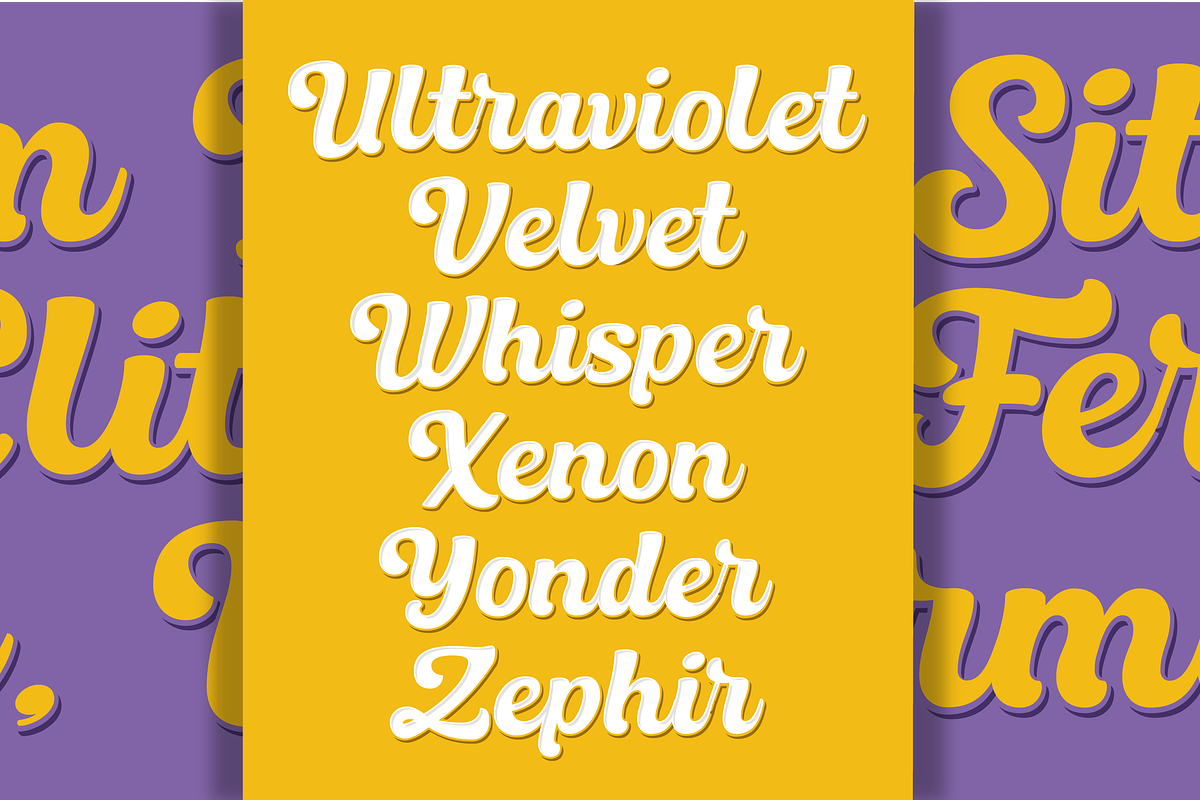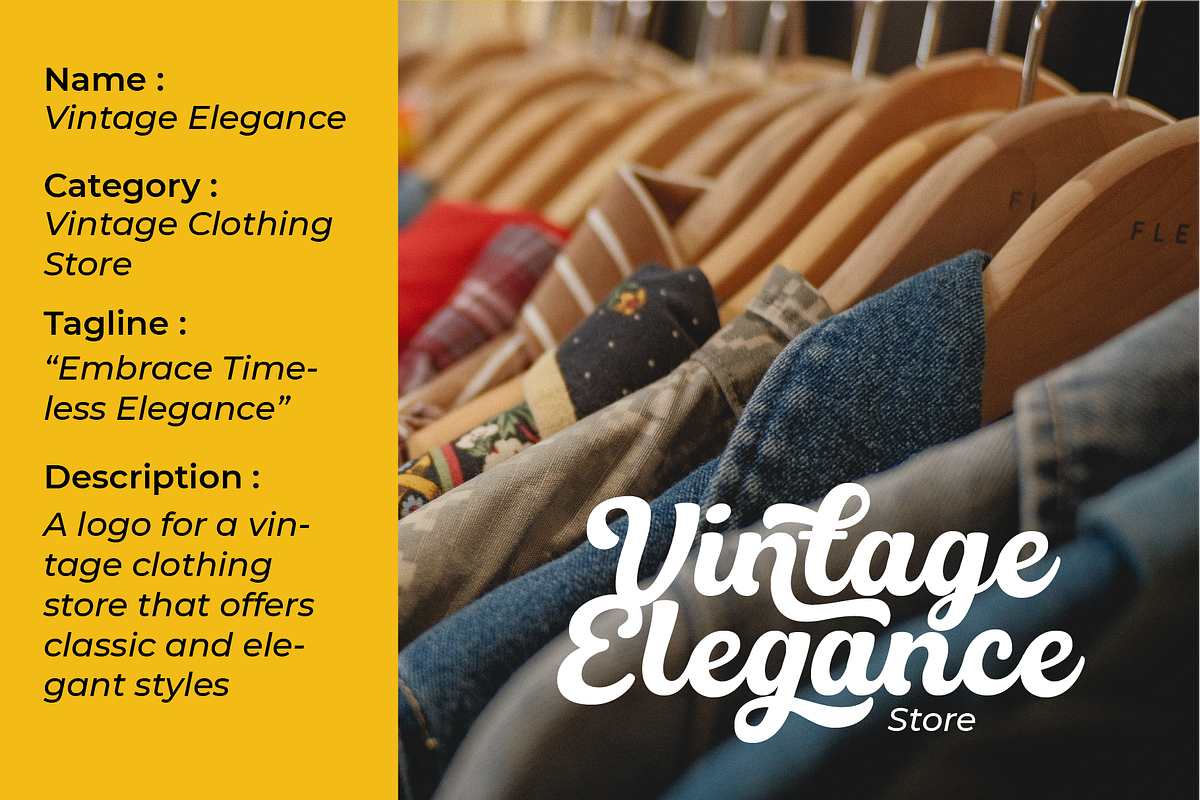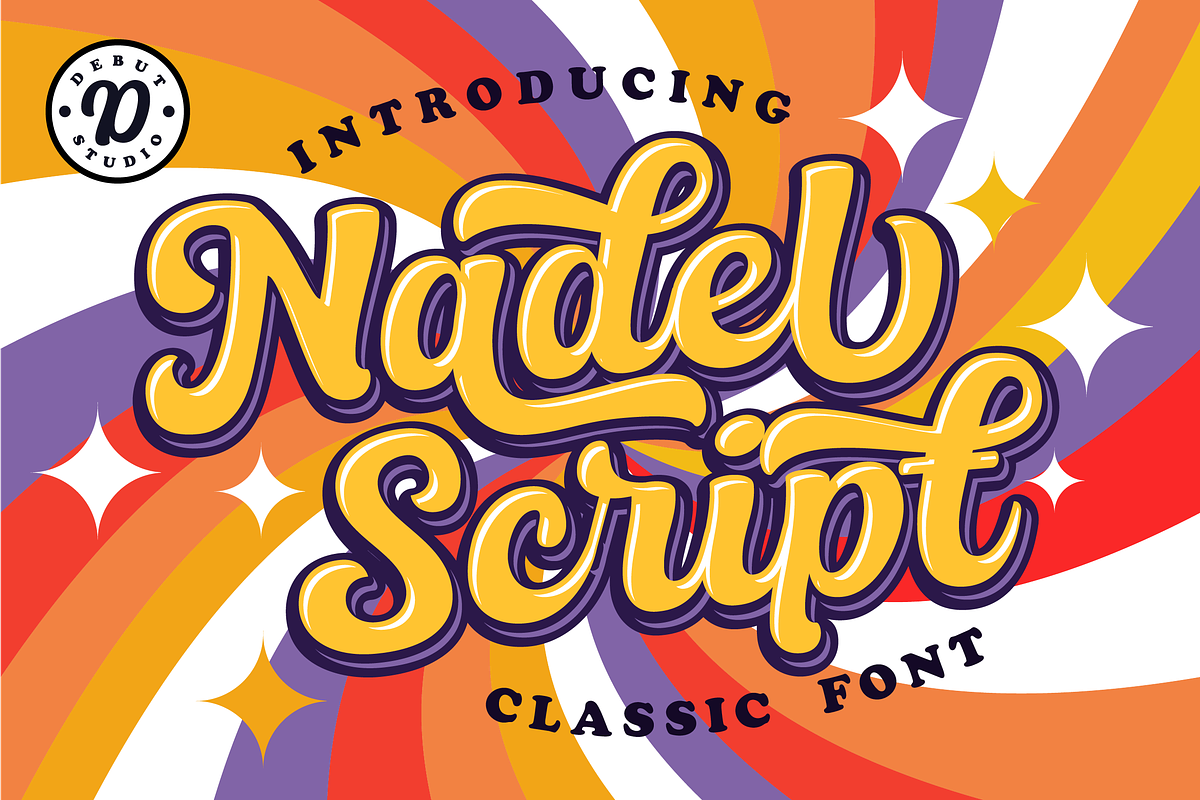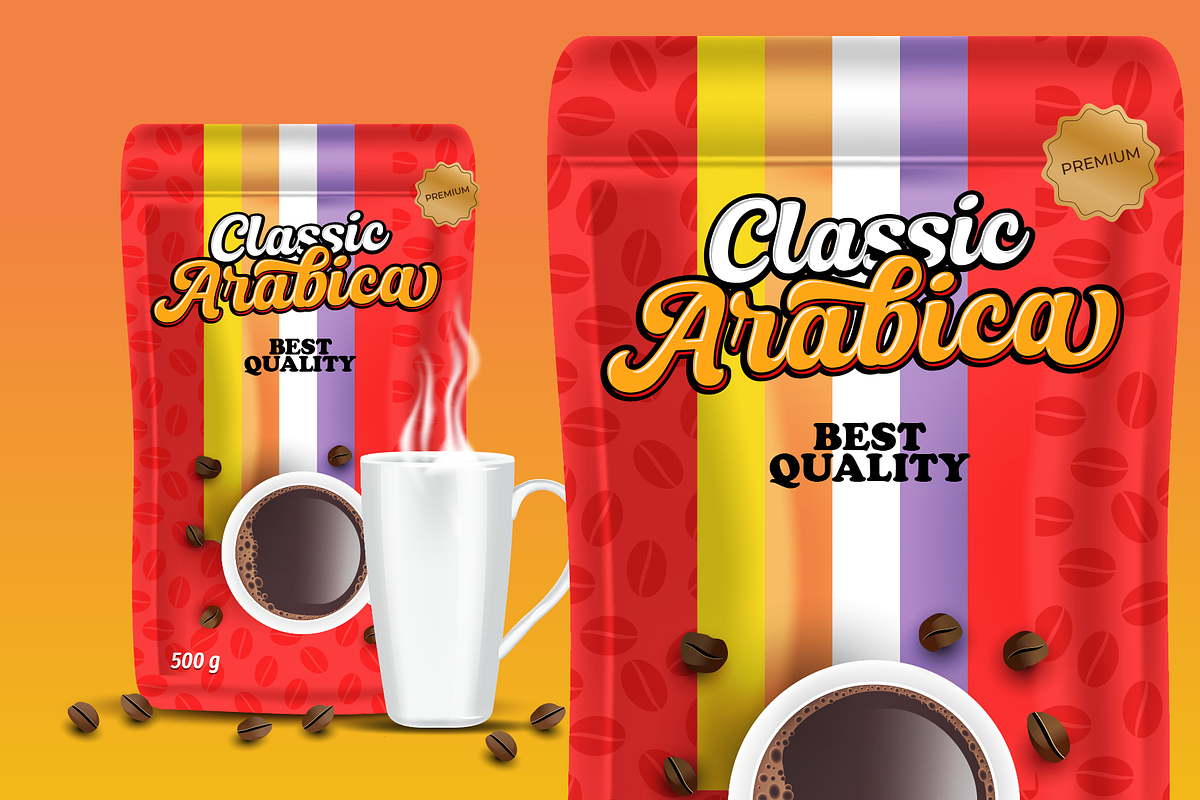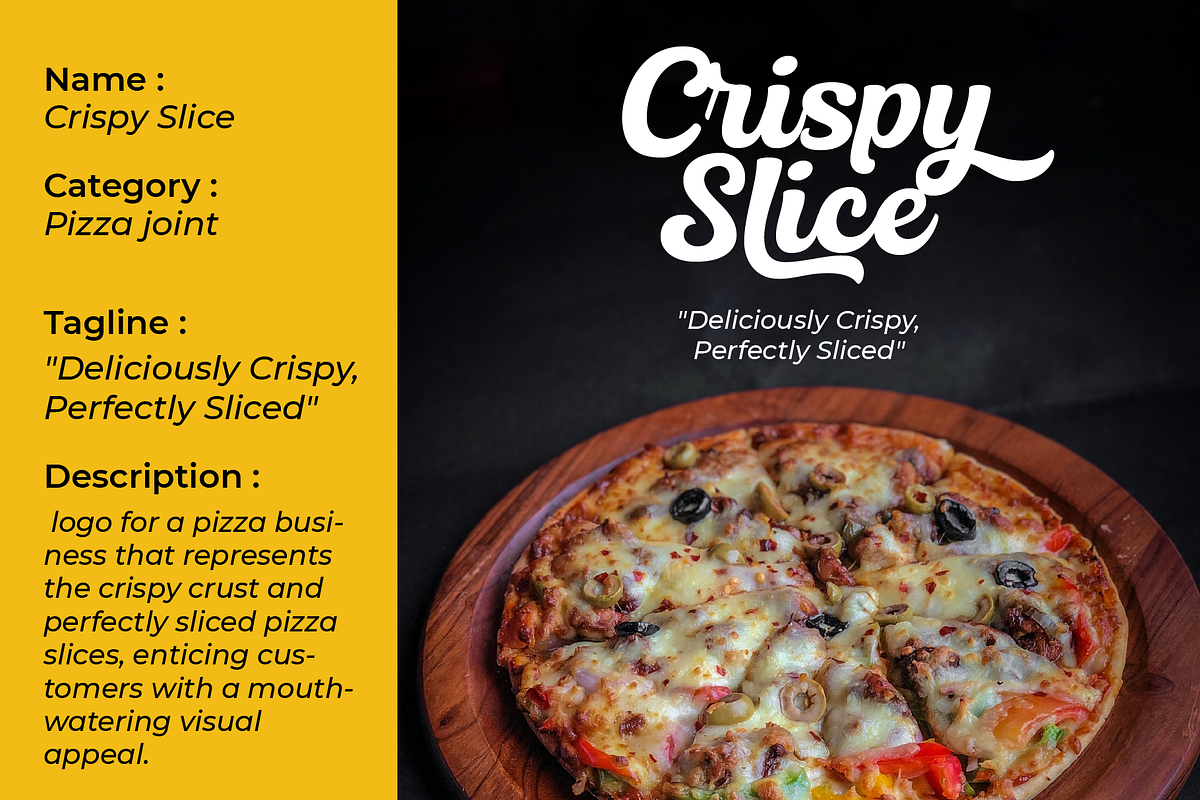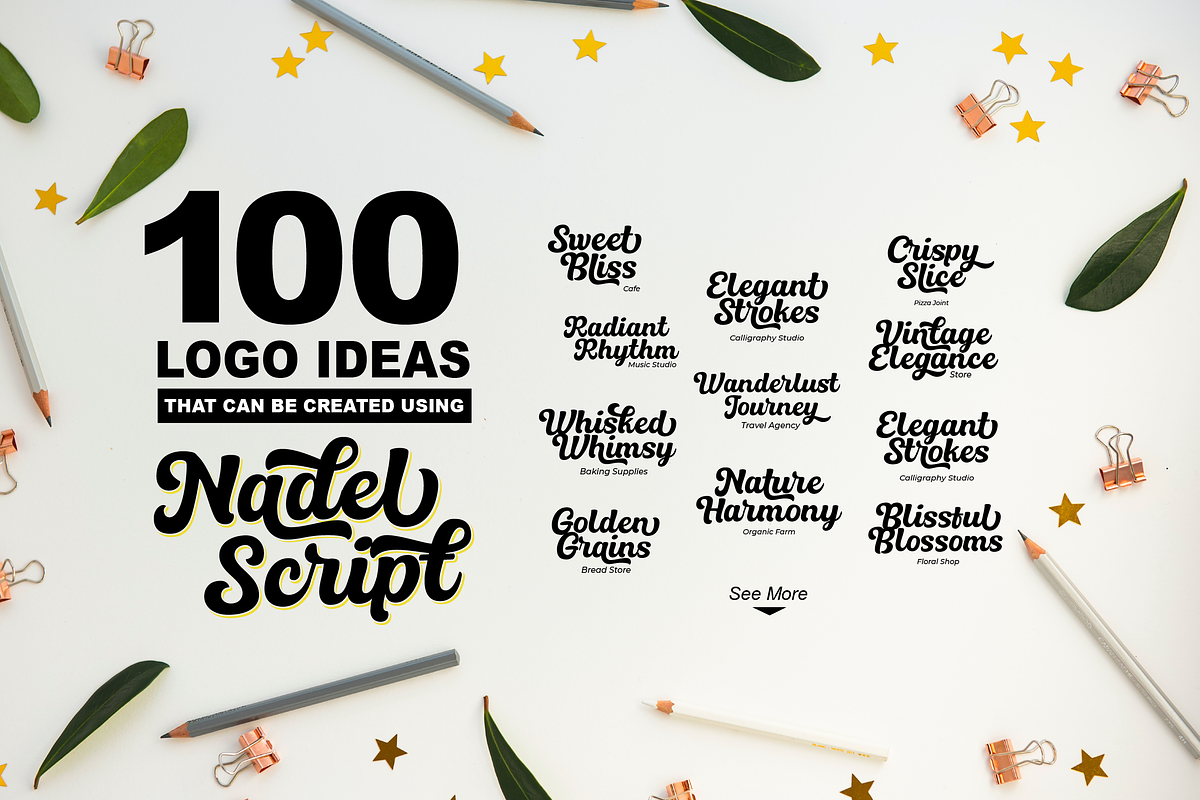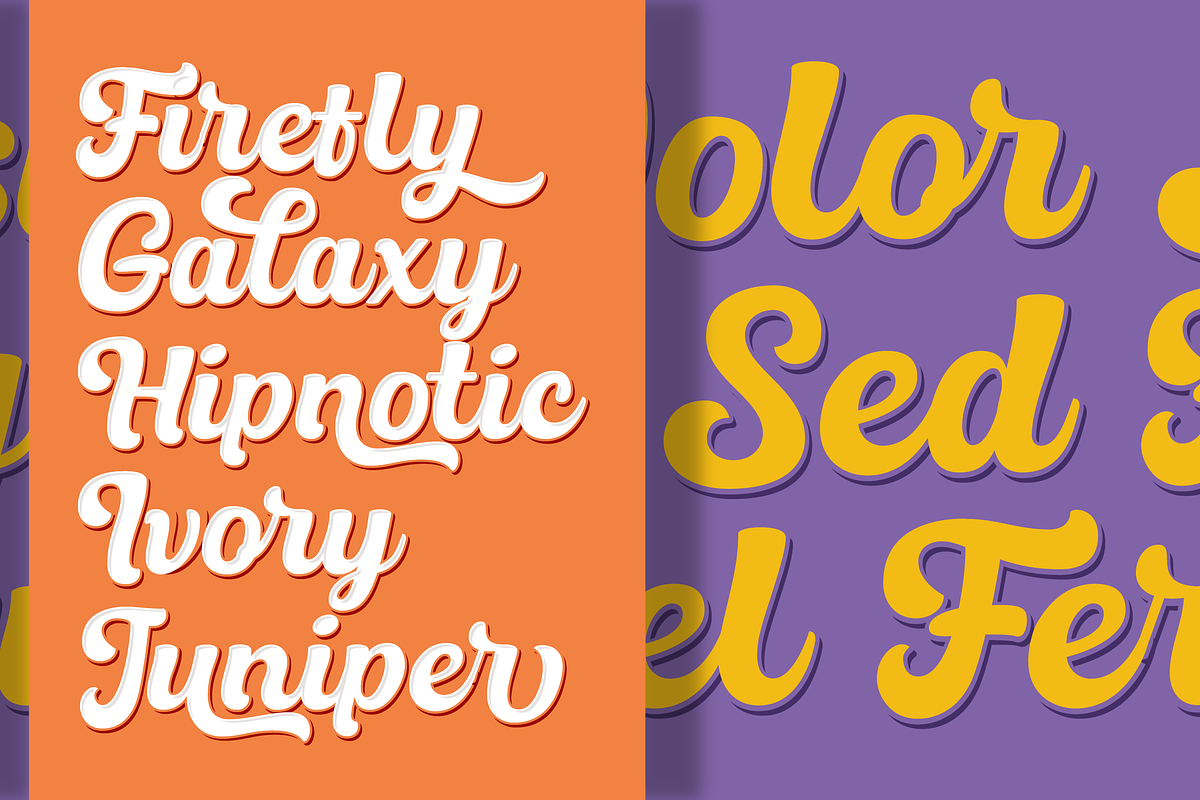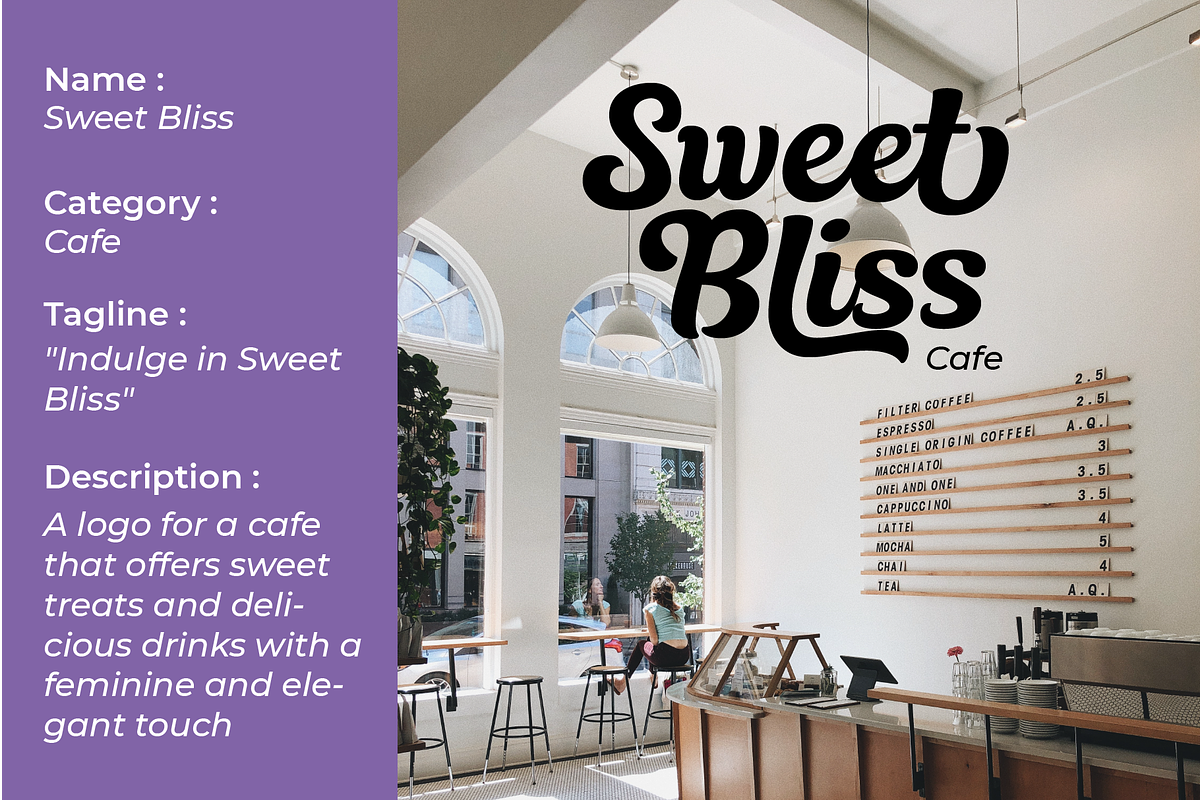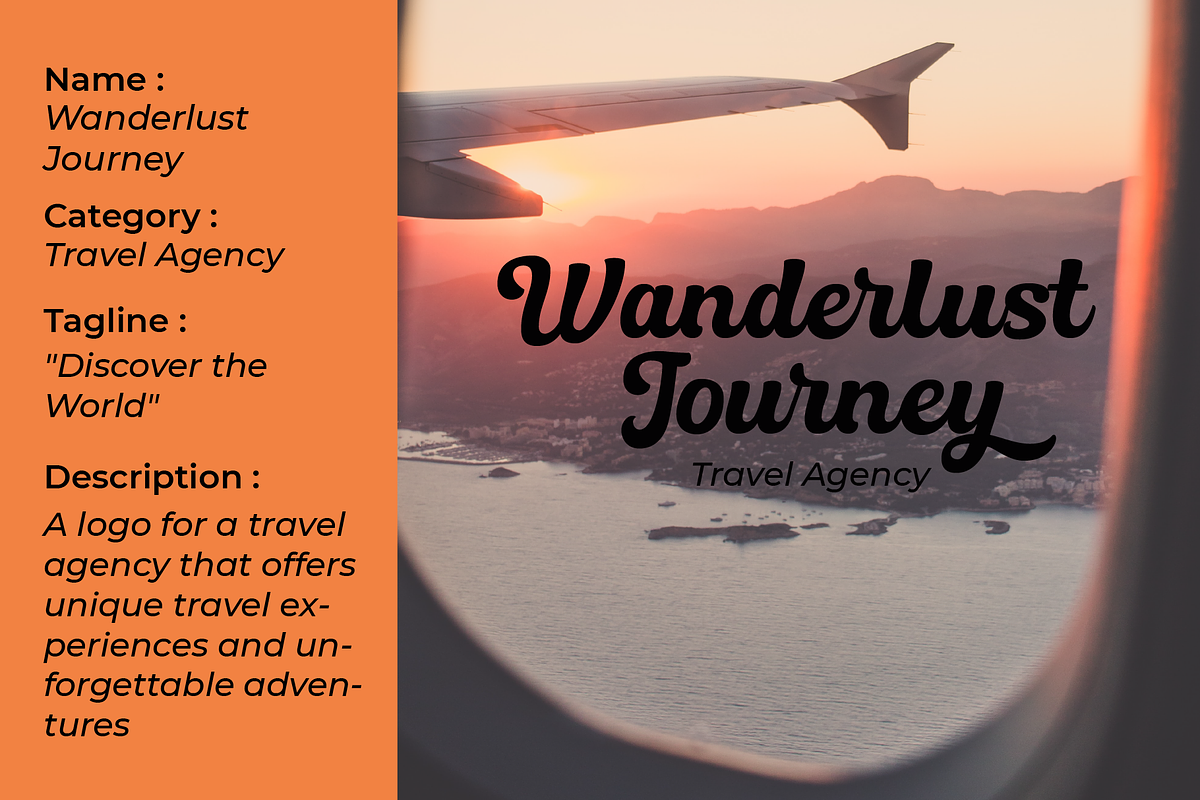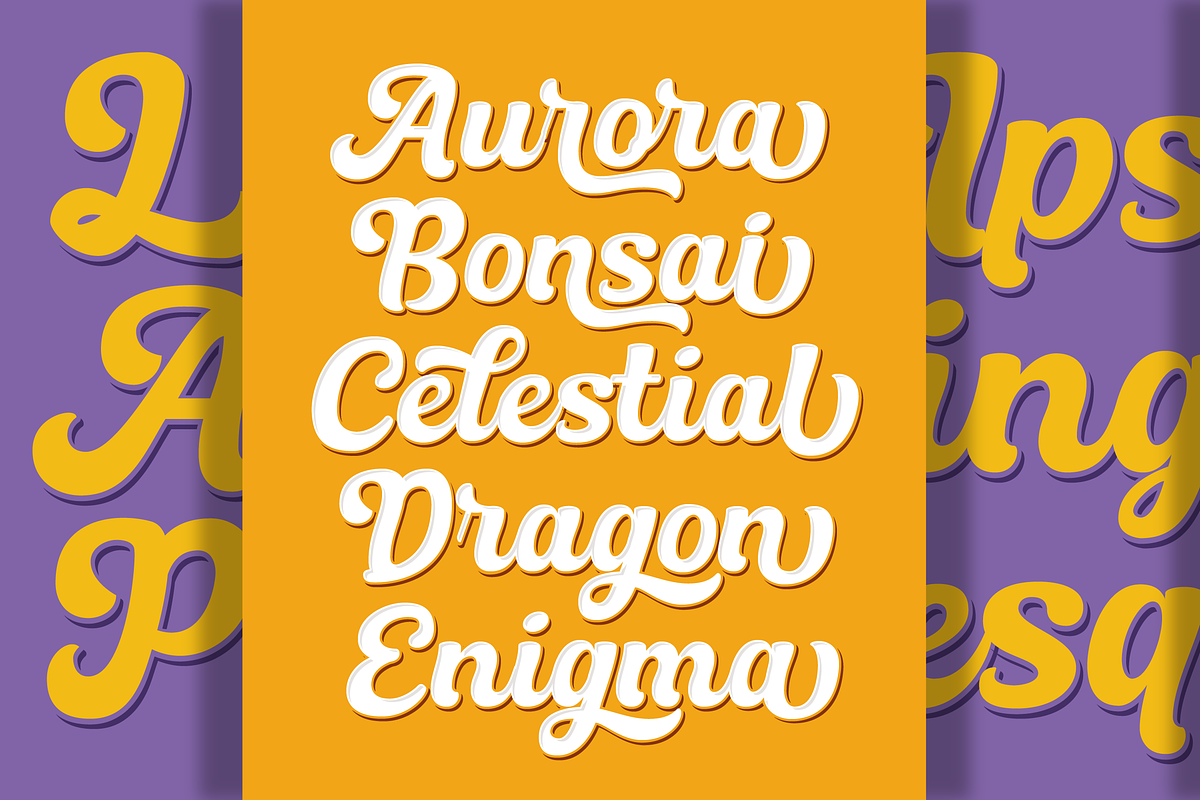
UNLEASH YOUR CREATIVITY WITH NADEL SCRIPT - CLASSIC LAYERED FONT!
Nadel Script is a classic font that pays homage to the timeless elegance of traditional script lettering. Inspired by the calligraphic styles of the past, this font brings a touch of sophistication to your designs.
Drawing upon the rich history of script fonts, Nadel Script embodies the refined aesthetics of bygone eras. Its graceful curves and flowing lines evoke a sense of timeless beauty and elegance. With layered features, you can effortlessly add depth and dimension to your typography, creating stunning visual effects that elevate your designs.
Here's what makes Nadel Script - Classic Layered Font stand out: Classic Elegance: Nadel Script captures the essence of traditional script lettering, infusing your designs with a touch of vintage charm and sophistication. Its graceful strokes and intricate details add a sense of refinement and style to any project.
Layered Features : With layered features, Nadel Script offers you the flexibility to experiment and create captivating visual effects. Whether you're adding base shadows, and highlights, these layers allow you to customize your typography and bring depth to your designs.
Extensive Glyph Set : Nadel Script boasts an extensive glyph set, featuring over 250 meticulously crafted characters. This includes initial and terminal letters, alternates, ligatures, and comprehensive language support. These diverse options ensure that your typography remains versatile and adaptable to various design needs.
Easy Integration : Designed with convenience in mind, Nadel Script is built on solid lettering principles from the early 20th century. Its OpenType features automatically adjust within your design layout, eliminating the need for manual adjustments such as tracking values or kerning pairs. This seamless integration saves you time and effort, allowing you to focus on unleashing your creativity.
Whether you're working on branding, invitations, packaging, or any other creative project, Nadel Script - Classic Layered Font empowers you to infuse your designs with a touch of classic elegance. Let this font become your go-to choice for capturing the essence of timeless lettering and elevating your visual storytelling.